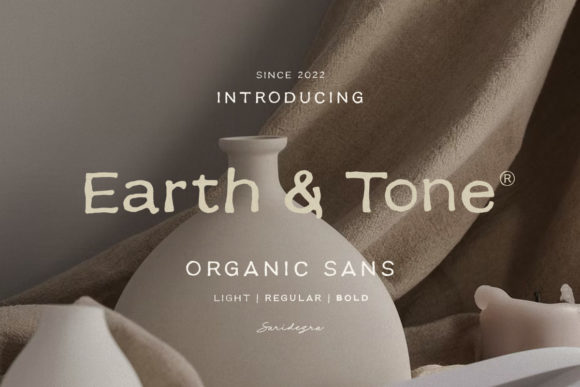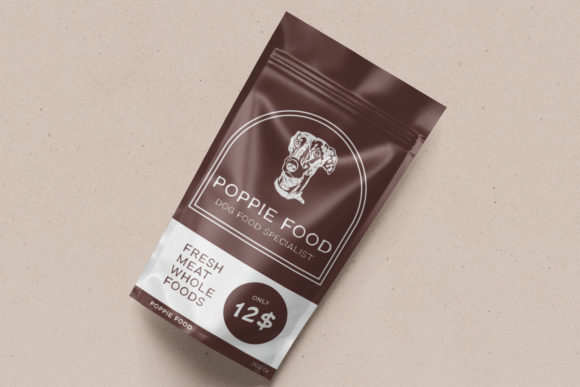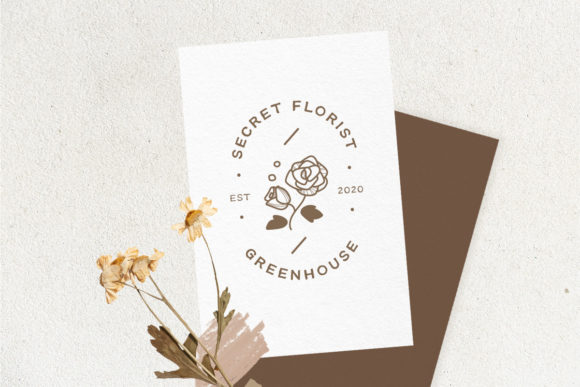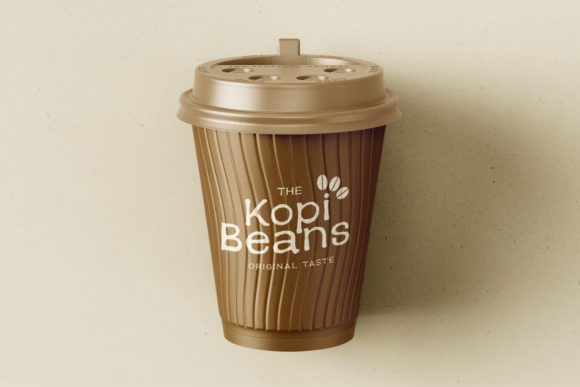
Earth Tone Font
About the Earth Tone Font
We are excited to introduce Earth Tone Font, a must-have typeface for any serious designer. Earth Toneis an elegant and modern sans serif font. This minimalist and clean vibe can easily apply to your favorite designs such as book covers, magazines, social media posts, invitations, and so much more!
Earth Tone’s clean lines and subtle curves make it ideal for headlines, branding materials, and short-form content like social media posts and invitations. Its minimalist aesthetic lends itself well to modern and sophisticated projects. However, its limited character set and relatively thin strokes make it less suitable for large blocks of body text or UI elements where high readability is crucial.
The font’s elegant yet understated personality pairs well with several contrasting styles. Consider pairing it with a classic serif like Garamond for a touch of traditional sophistication, or a geometric sans-serif such as Futura for a more modern, high-contrast combination. A playful script font could add a touch of personality to designs where a more relaxed feel is desired.
Overall, Earth Tone projects a feeling of calm confidence and refined modernity, making it a strong choice for brands aiming for a sophisticated, yet approachable image.
Earth Tone Font Usage Examples
Earth Tone Font Example